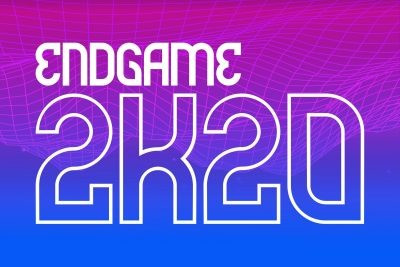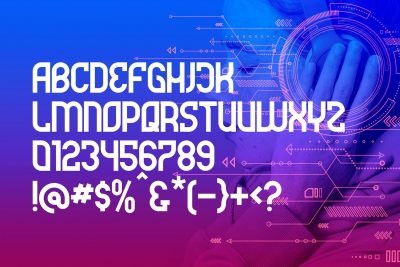
Deadly Advance Display Font
Deadly Advance is a unique, energetic display font with both crazy edgy elements and smooth curves. Perfect for sci-fi and tech themes, music venues, science presentations etc!